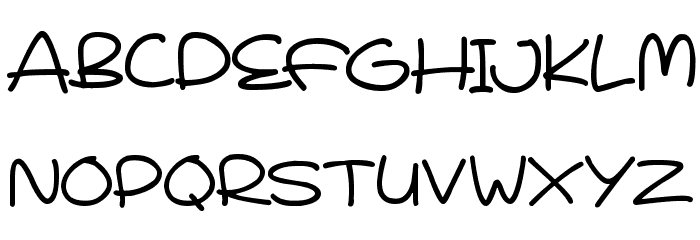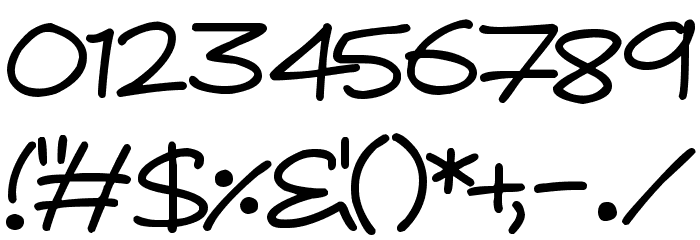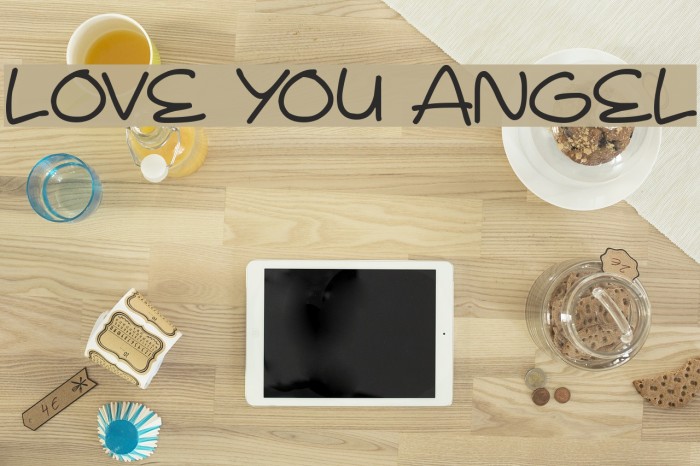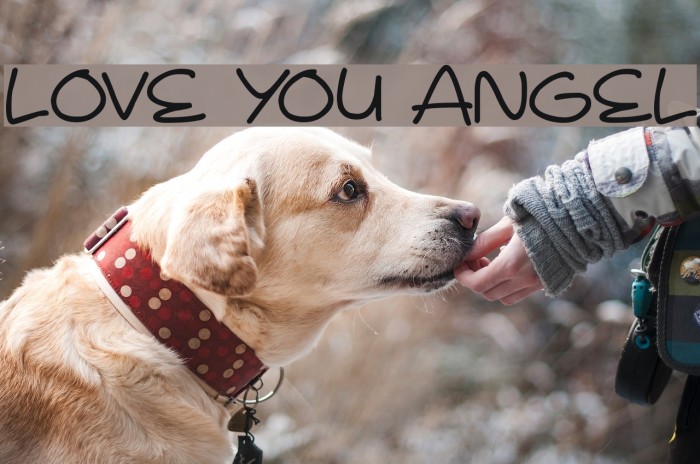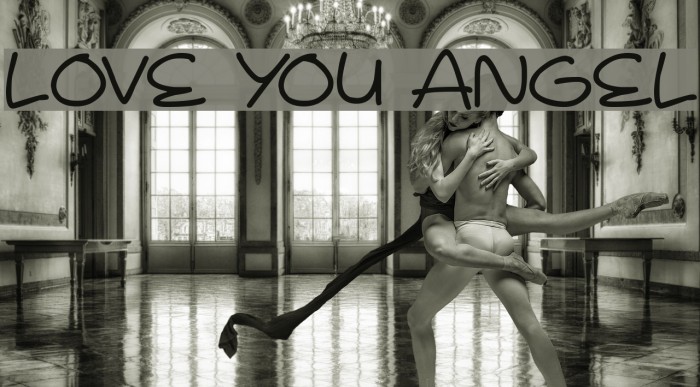
Love You Angel Font
This playful and whimsical font features a handwritten style with a casual, friendly appearance. The letters are slightly slanted, giving a dynamic and lively feel. The strokes are consistent in thickness, providing a uniform look across all characters. The rounded edges and smooth curves contribute to its approachable and informal aesthetic. This font includes both uppercase and lowercase letters, numerals, and a variety of special characters, making it versatile for different design needs.
A playful handwritten font with a casual and friendly style.
- Proposed Projects: Ideal for greeting cards, children's books, playful branding, and casual invitations.
- Overall Style: Casual
- Use Case: Headlines, Logos, Invitations